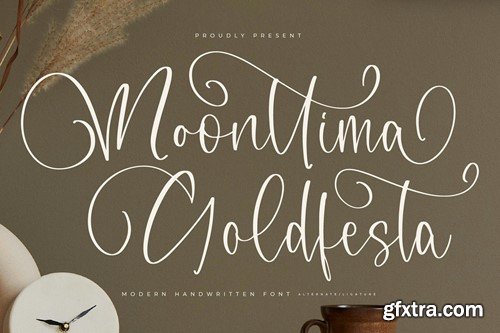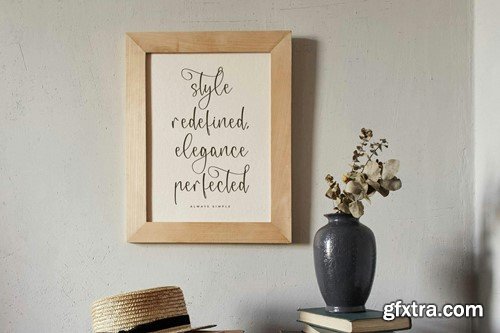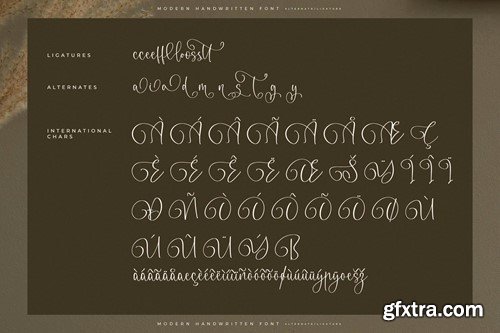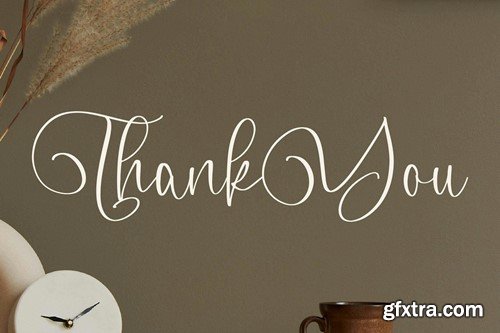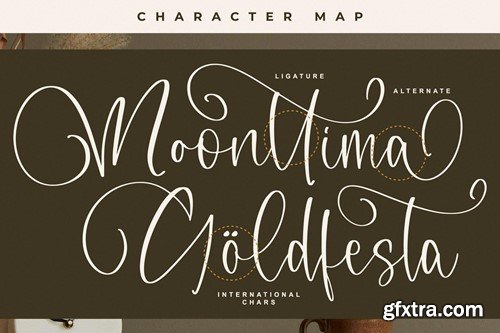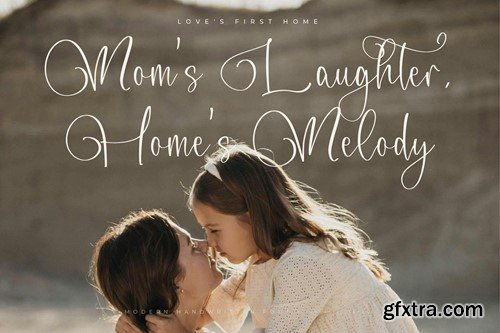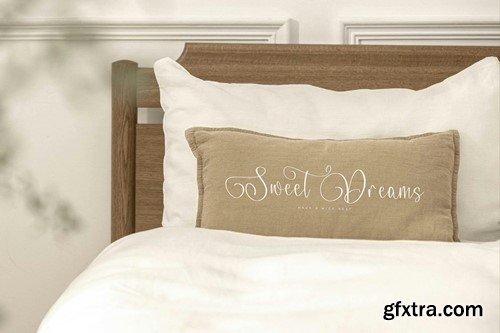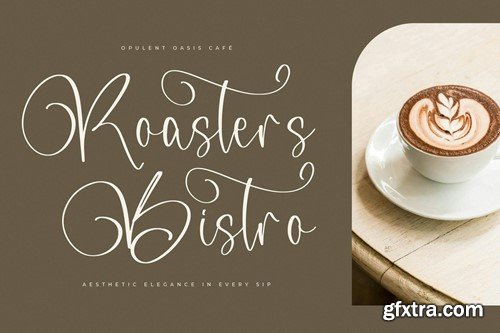
Moonttima Goldfesta Modern Handwritten Font SHTMDY2
Moonttima Goldfesta Modern Handwritten Font
Hi ladies & gentlemen, this is one of our fonts suitable to complement your digital and printed creative products. This font is perfect for posters, social media posts, branding, personal projects, etc.